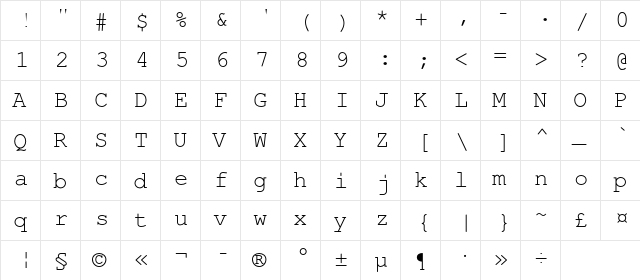
APCCourier-Regular Font Preview
APCCourier-Regular Regular
Design Context for APCCourier-Regular Typeface
APCCourier-Regular brings the precise, column-aligned rhythm of monospaced typography to designs that value technical clarity and systematic order.
Pro Tip: Use APCCourier-Regular with slightly increased line-height for extended reading — fixed-width spacing can feel dense in longer passages without extra breathing room.